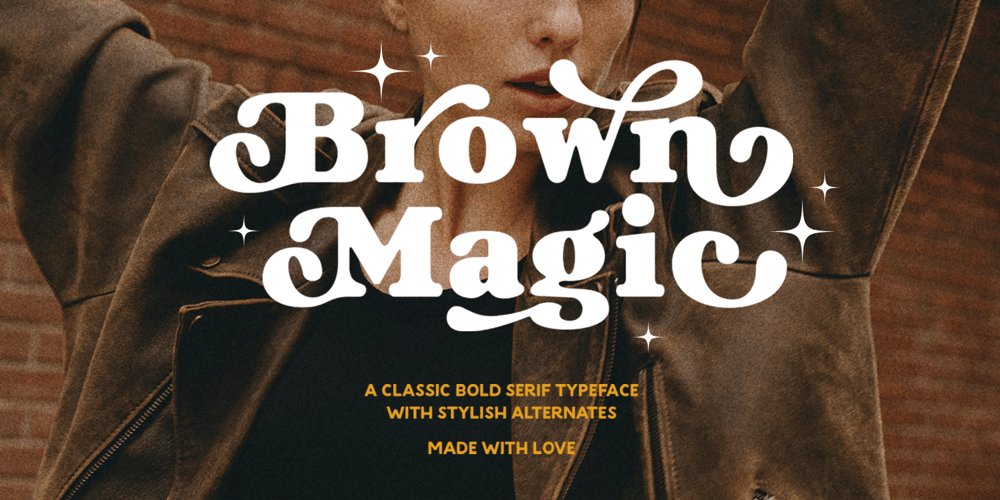
Brown Magic Font Family was designed by Sarid Ezra, Dzikrul Aulia and published by Bale Type. Brown Magic contains 1 styles and family package options. Brown Magic is a bold and stylish serif font that brings a retro and vintage looks to any design, featuring a variety alternates to add a unique touch to your design. Its versatile style makes it perfect for a wide range of uses, from posters, logotypes, and quotes to wedding invitations. The addition of swashes and stylish alternates further enhances the uniqueness and visual appeal of your projects. Plus, Brown Magic supports multiple languages, making it a versatile choice for diverse audiences.